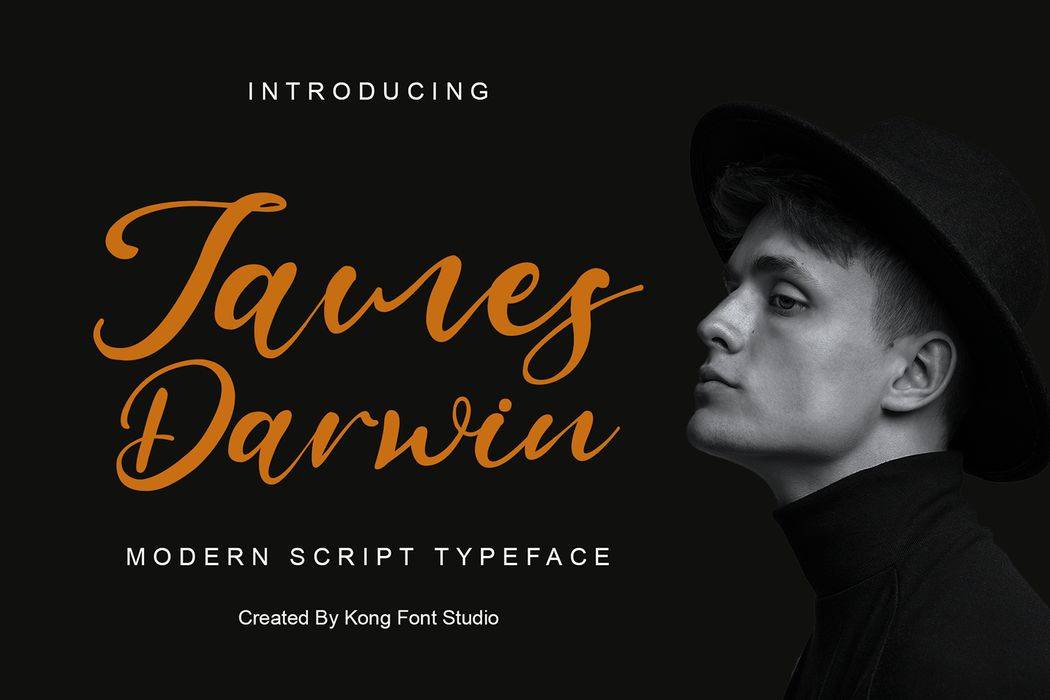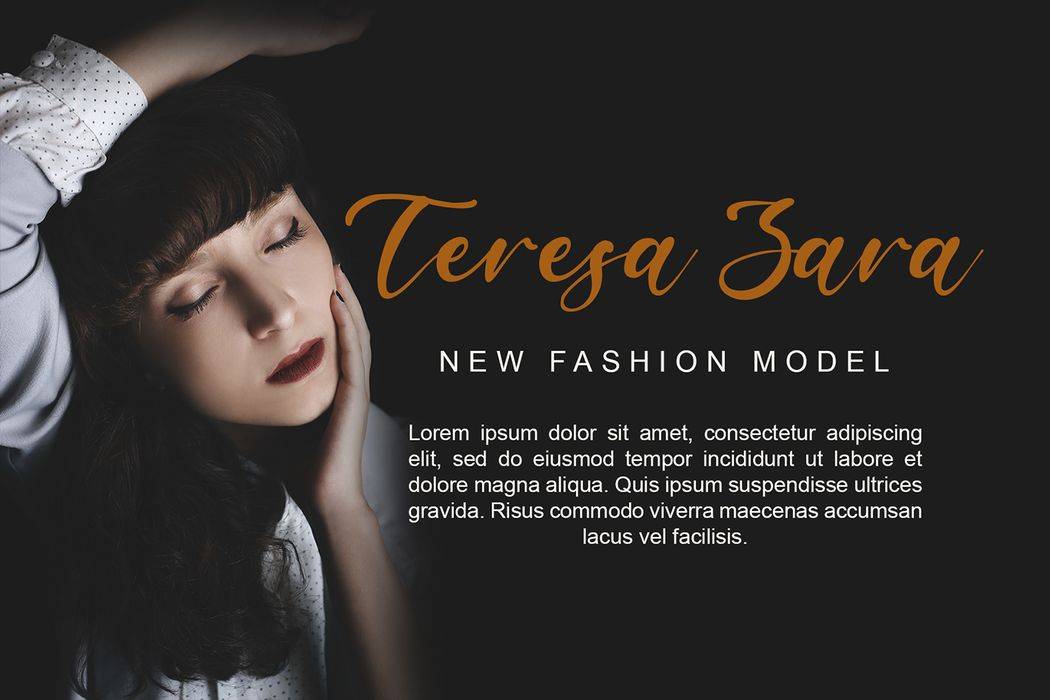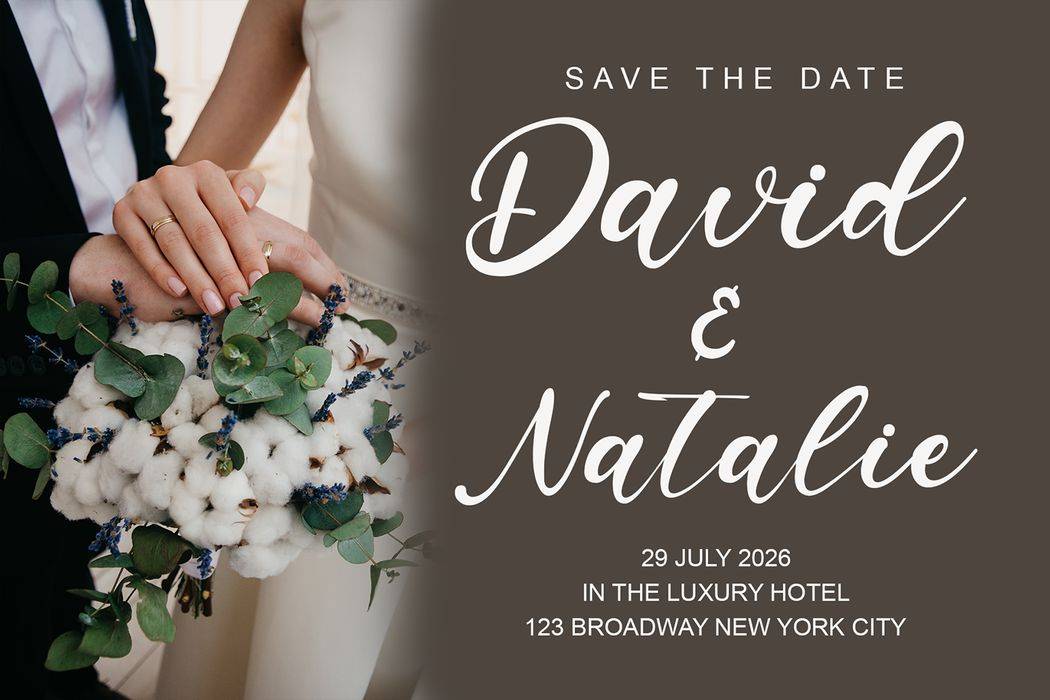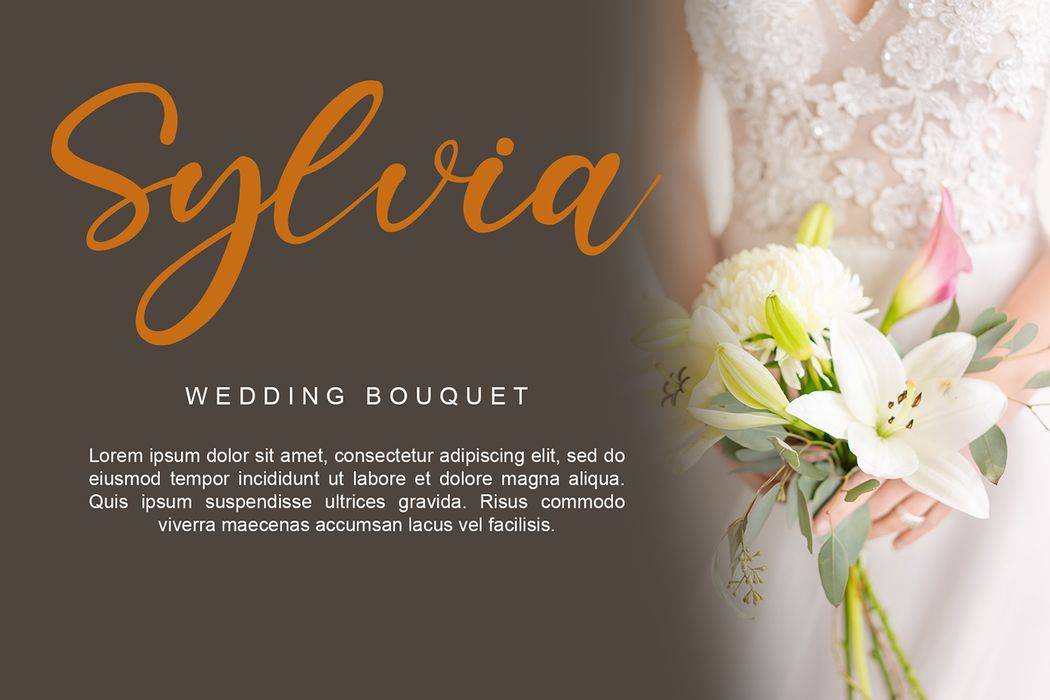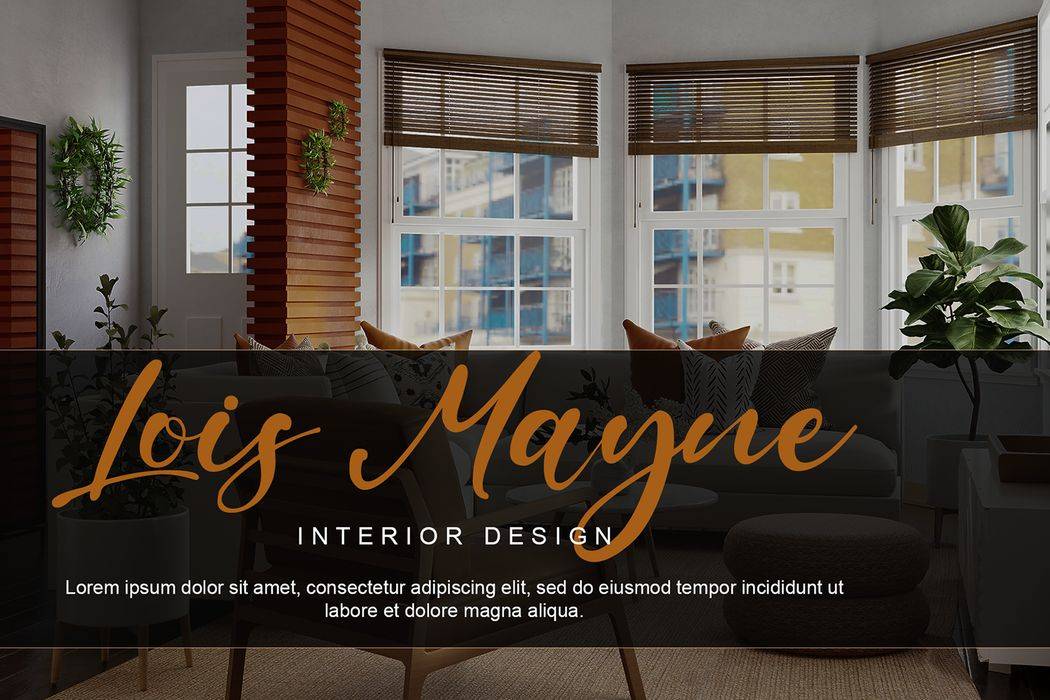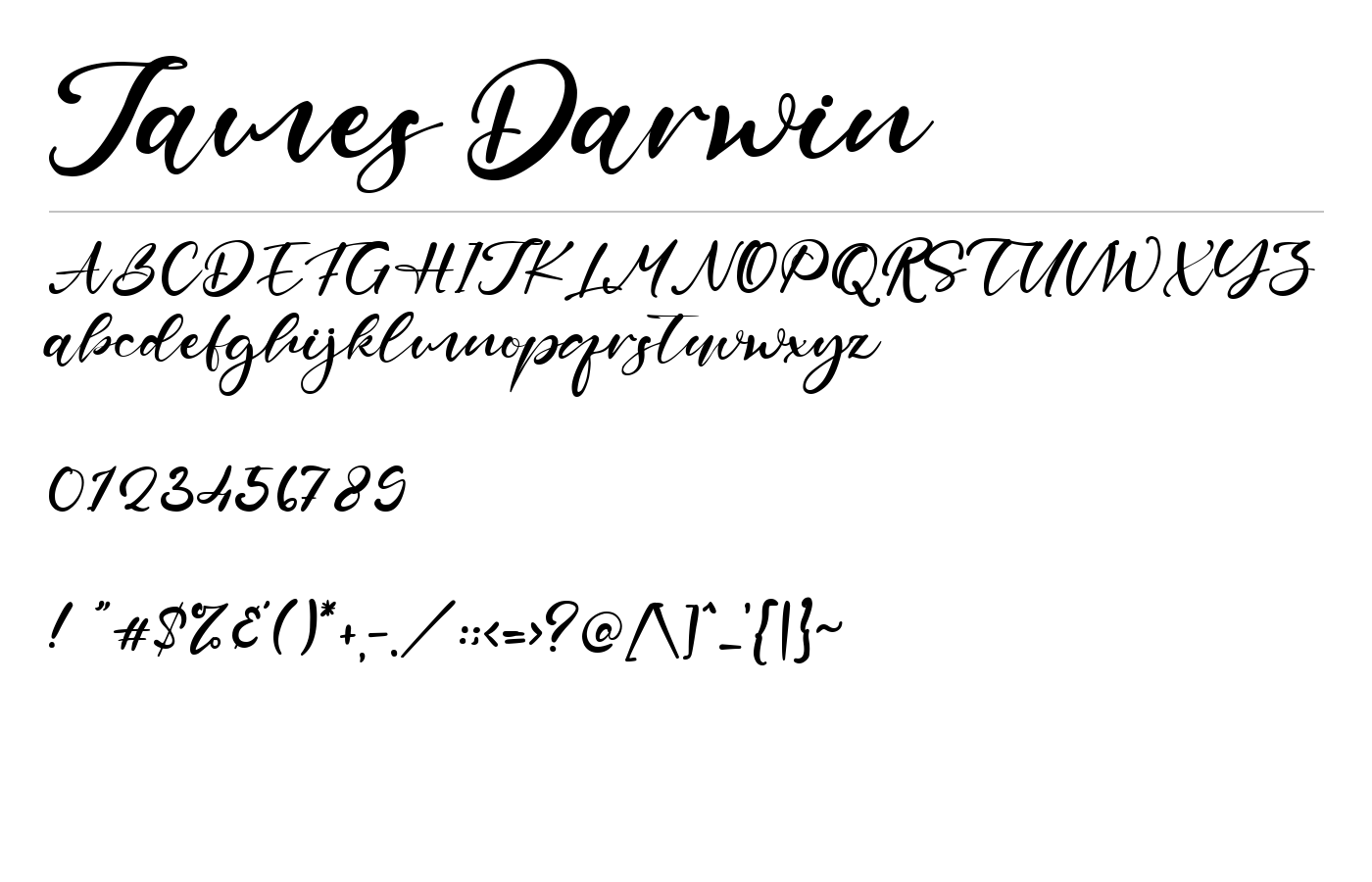
James Darwin is an elegant script font that features smooth, flowing strokes with a medium contrast, giving it a graceful and handwritten feel. Its stylish letterforms, including distinctive single-story characters and refined curves, make it perfect for wedding invitations, branding, and sophisticated editorial designs where a touch of personal charm and refinement is desired.
James Darwin Font
About James Darwin Font